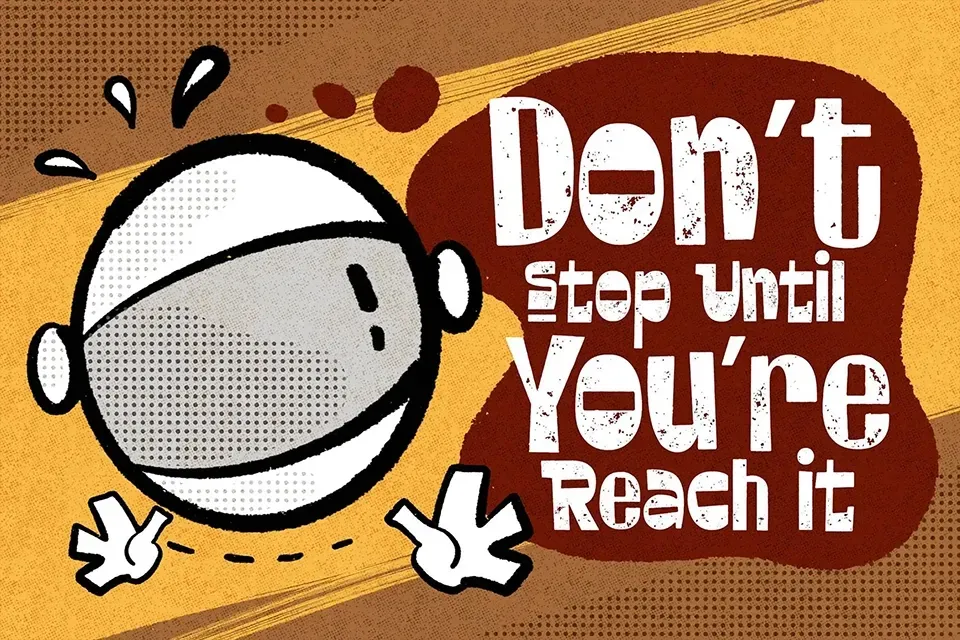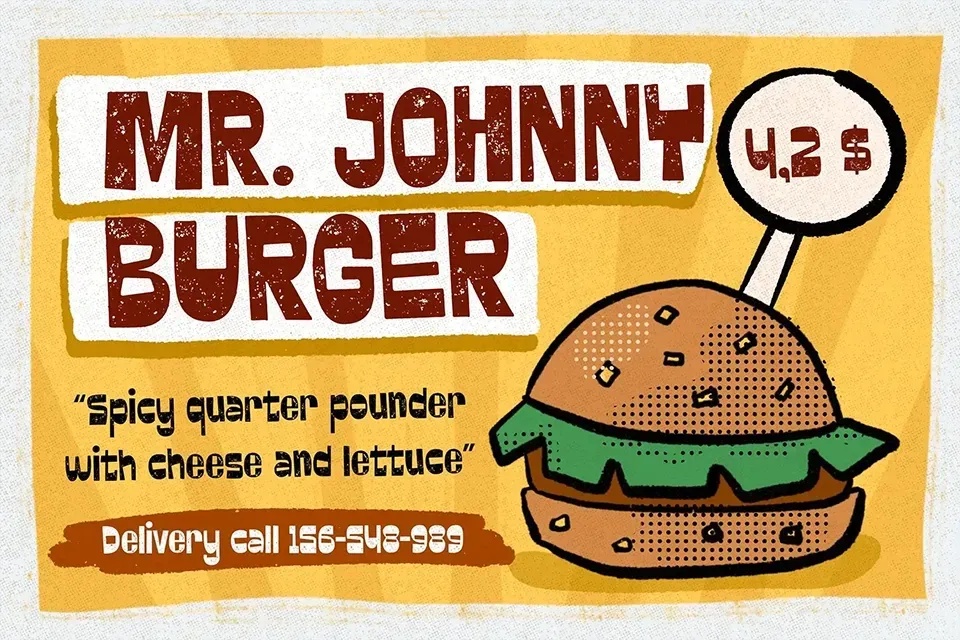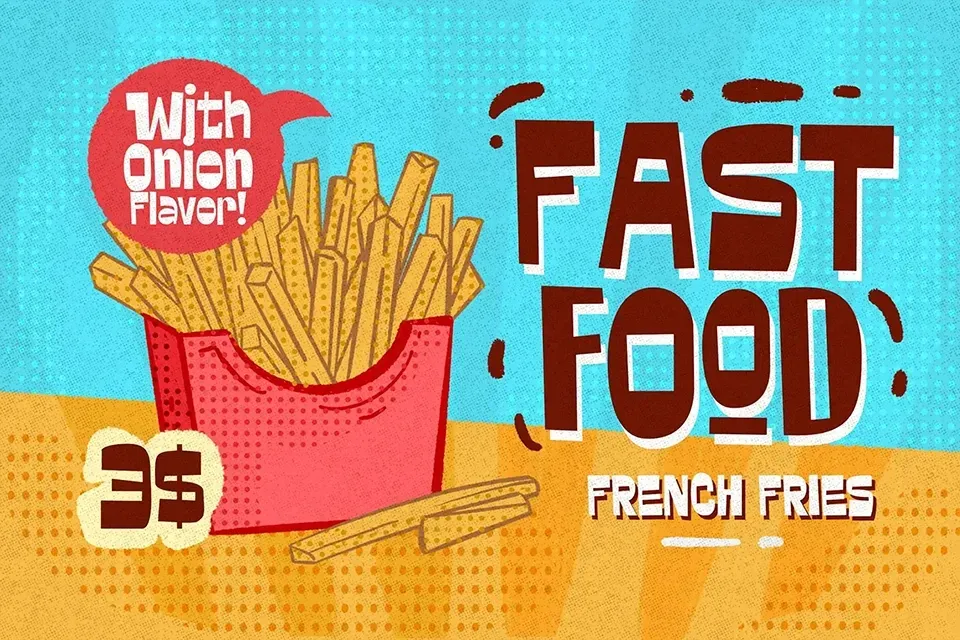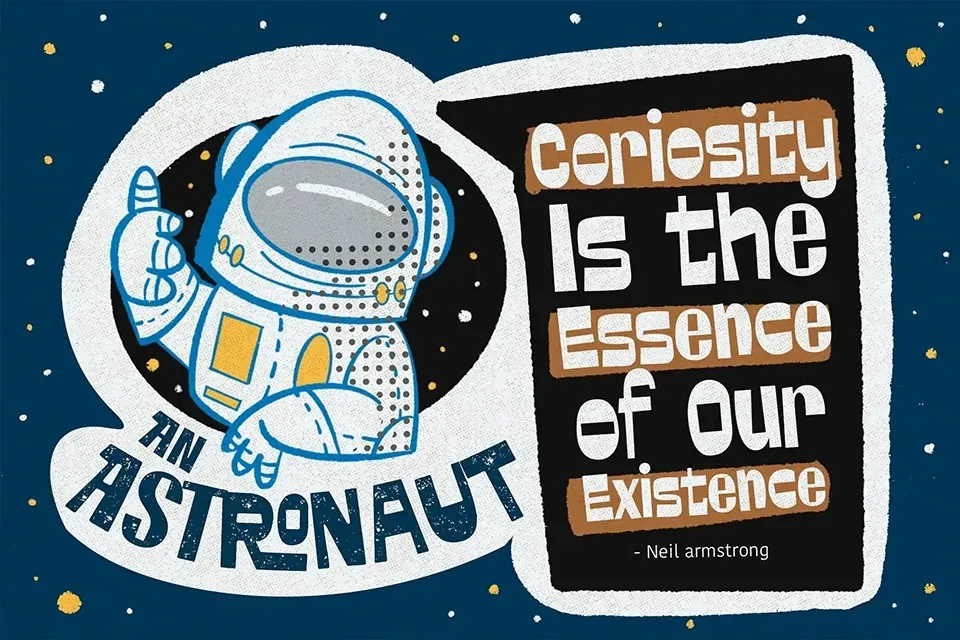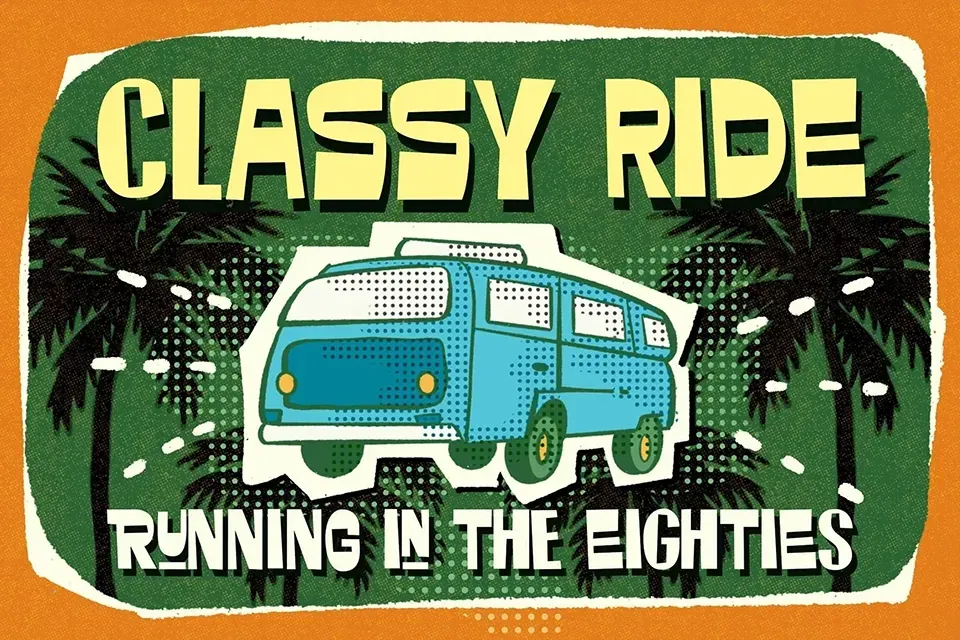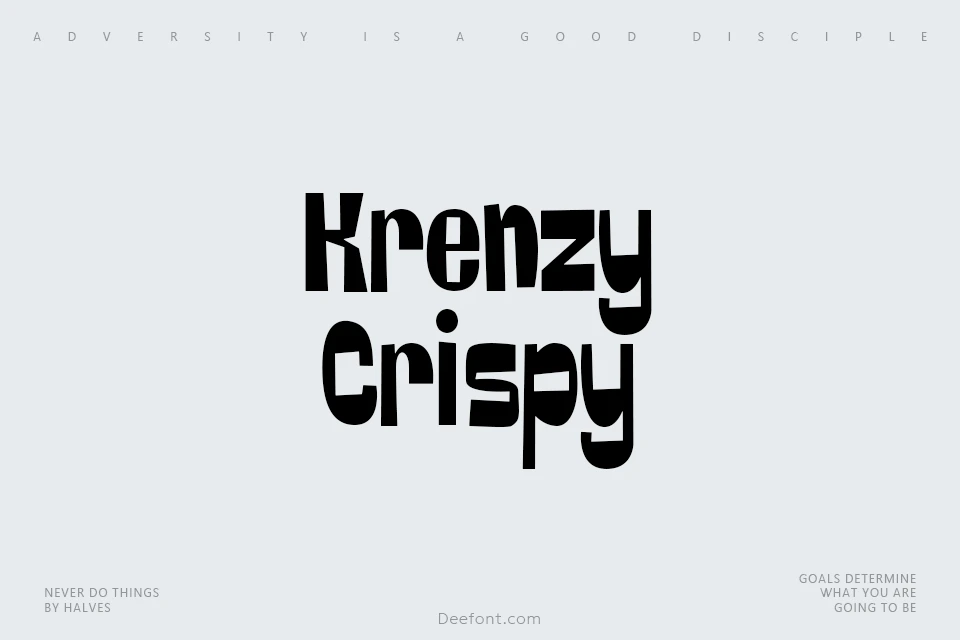
Krenzy Crispy Font
Krenzy Crispy Font is a bold and playful display typeface designed to bring energy and character to creative projects. Featuring chunky, textured letterforms with a distressed, vintage-inspired aesthetic, this font is perfect for designs that demand attention and a retro vibe. Ideal for posters, packaging, branding, and social media graphics, Krenzy Crispy adds a dynamic and fun touch to any composition. Its unique style combines boldness with a handcrafted feel, making it versatile for both modern and nostalgic themes. Whether used for headlines or decorative text, this font delivers a lively and impactful visual presence that stands out.